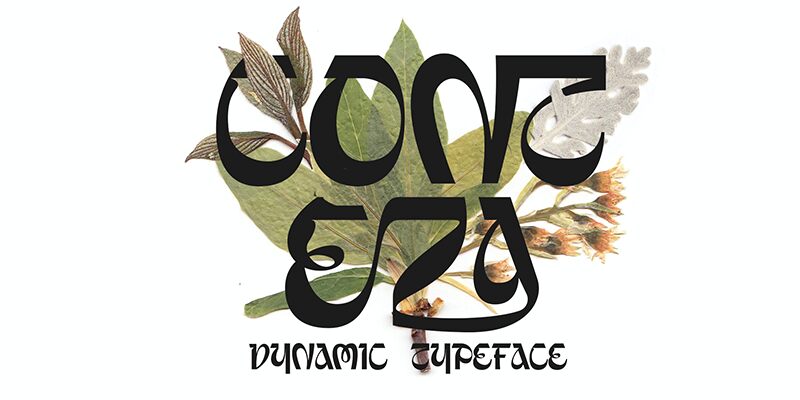
Conteza font by Mocha Frappuccino is a free decorative display font. Built around bold, ink-rich curves that carve into crisp, white pockets, it feels sculpted rather than drawn. The rhythm swings from thick, velvety swells to knife-sharp wedges, giving headlines a rare, theatrical pulse without losing legibility. Each letter looks hand-cut, a little luxe, a little rogue—and that tension is the hook.
Using Conteza, titles command attention on fashion branding, fragrance packaging, boutique logos, nightlife posters, album art, magazine covers, and art festivals. The confident contrast and swirling negative spaces read beautifully at large sizes; give it room and slightly loosen the tracking. Pair this free font with a clean geometric sans for copy to let its carved forms take center stage.